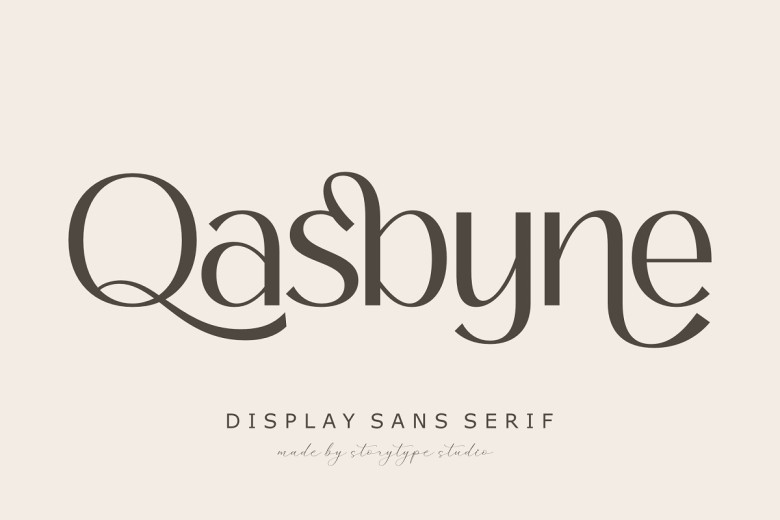
Qasbyne Font
Qasbyne is a modern and classic display sans serif font that has own unique style & modern look. This typeface is perfect for an elegant & luxury logo, book or movie title design, fashion brand, magazine, clothes, lettering, quotes and much more.
Qasbyne Sans Serif Font